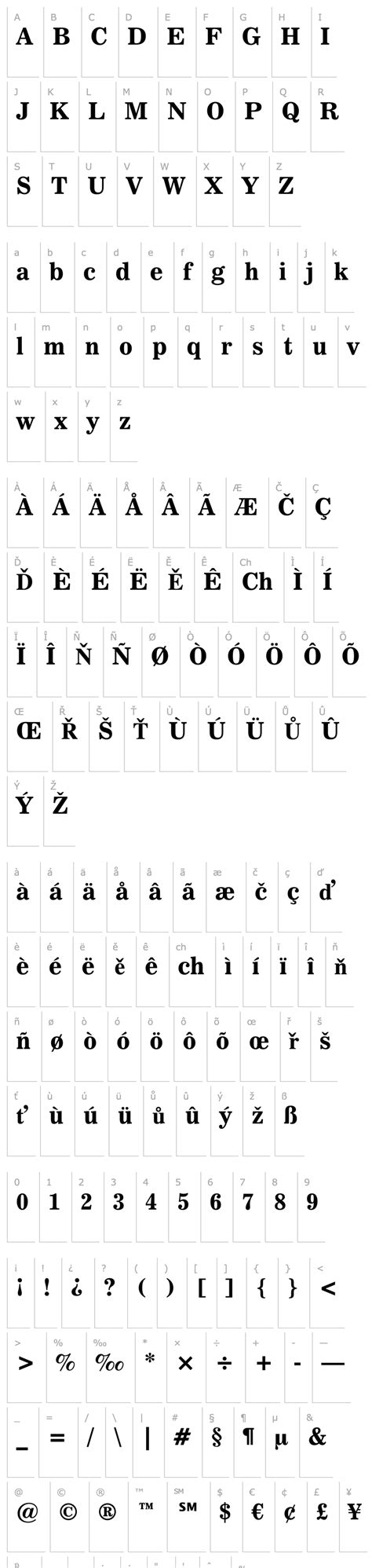
The Iinews706 Font: A Comprehensive Guide
The iinews706 Font: A Comprehensive Guide
Hey everyone! Today, we’re diving deep into something super cool for all you designers, bloggers, and content creators out there: the iinews706 font . You might have seen it popping up around the web, or maybe you’re curious about what makes this particular typeface tick. Well, buckle up, because we’re about to break down everything you need to know about the iinews706 font, from its origins and characteristics to where you can use it and how to make it shine in your projects. We’ll explore why this font has gained traction and how it can elevate your visual game. So, if you’re looking to add a fresh, distinctive touch to your designs, stick around. We’re going to cover its unique features, its versatility, and some best practices for using it effectively. Get ready to fall in love with typography all over again, guys!
Unpacking the iinews706 Font: What Makes It Special?
So, what exactly is the iinews706 font and why should you care? This typeface has a certain je ne sais quoi that sets it apart from the crowd. When we talk about fonts, we’re not just talking about letters; we’re talking about personality, tone, and how a message is received. The iinews706 font, for starters, often boasts a clean, modern aesthetic. This means it’s incredibly versatile and can adapt to a wide range of applications, from sleek corporate branding to trendy social media graphics. Think about the subtle curves, the precise kerning, and the overall balance it brings to any text. These aren’t accidental; they’re carefully crafted elements that contribute to its readability and visual appeal. Its legibility is a huge plus , especially for digital content where users are often scanning information quickly. The designers behind iinews706 clearly put a lot of thought into ensuring that it works well across different screen sizes and resolutions. Whether you’re using it for headlines that need to grab attention or for body text that needs to be easily digestible, this font performs admirably. We’re going to explore the nuances of its design, perhaps touching on its serifs (or lack thereof, if it’s sans-serif!), its stroke width variations, and how these elements contribute to its overall character. Understanding these finer points helps you appreciate the craft and make informed choices about when and how to deploy it. So, if you’re looking for a font that’s both stylish and functional, the iinews706 font might just be your new best friend in the design world.
Exploring the Versatility of iinews706
One of the most compelling aspects of the iinews706 font is its sheer versatility, guys. Seriously, this font isn’t a one-trick pony. It can seamlessly transition from one design context to another, making it a valuable asset in any designer’s toolkit. Let’s talk about how. For starters, its clean lines and balanced proportions make it an excellent choice for branding and corporate identity . Imagine a company logo using iinews706 – it immediately conveys professionalism, modernity, and a certain level of sophistication. But it doesn’t stop there. Flip the script, and this same font can be used for more creative endeavors. Think about website design : iinews706 can be used for navigation menus, body text, or even eye-catching headings. Its readability ensures that your users can easily find what they’re looking for, enhancing their overall experience on your site. And for print design , whether it’s brochures, posters, or business cards, iinews706 holds its own. It doesn’t get lost in busy layouts and maintains clarity even at smaller sizes. Social media managers, take note! This font is also fantastic for social media graphics and marketing materials . It pops on platforms like Instagram, Facebook, and Twitter, helping your content stand out in a crowded feed. Plus, if the iinews706 font comes in multiple weights (like light, regular, bold, etc.), that’s another layer of versatility. You can use different weights to create hierarchy and visual interest within your designs without needing to switch fonts – keeping your design cohesive and professional. We’ll delve into specific examples of how it excels in different scenarios, proving that the iinews706 font is truly a chameleon in the world of typography.
iinews706 in Branding and Marketing
When it comes to making a lasting impression, branding and marketing are where the iinews706 font truly shines. In the cutthroat world of business, your brand’s visual identity is often the first point of contact a potential customer has with your company. That’s where a well-chosen font like iinews706 can make all the difference. For logos, using iinews706 can instantly communicate a sense of modernity, trustworthiness, and innovation. Its clean and crisp letterforms ensure that your brand name is not only legible but also memorable. Think about how a simple, elegant font can convey more about a brand’s values than pages of text. This font has that power. Moving beyond the logo, consider its application in marketing collateral . Brochures, flyers, advertisements – they all benefit from a font that is both aesthetically pleasing and highly readable. iinews706 delivers on both fronts. It can be used for compelling headlines that capture attention and for body copy that smoothly guides the reader through your message. Imagine a product description that’s easy to read and engaging; it’s far more likely to convert potential customers. Furthermore, in the digital marketing space, consistency is key. Website design and social media graphics using the iinews706 font will create a unified brand experience across all platforms. This reinforces brand recognition and builds trust with your audience. If you’re running online ads, the font choice can significantly impact click-through rates. A clear, attractive font like iinews706 can make your ad more inviting and professional. We’ll be exploring specific design tips on how to leverage the iinews706 font to create impactful marketing materials that resonate with your target audience, ensuring your message cuts through the noise and achieves its desired outcome. It’s all about making smart, strategic choices with your typography, and iinews706 offers a fantastic foundation to build upon.
iinews706 for Web and Digital Content
Alright guys, let’s talk about the digital realm, because this is where the iinews706 font really proves its mettle. In today’s fast-paced online world, web and digital content demand fonts that are not only visually appealing but also exceptionally readable on screens of all sizes. The iinews706 font often fits this bill perfectly. Its design, typically characterized by clean lines and clear letterforms, ensures excellent legibility whether it’s being viewed on a massive desktop monitor or a tiny smartphone screen. This is absolutely crucial for user experience (UX). When visitors can easily read your website’s text, headings, and calls to action, they’re more likely to stay engaged, navigate your site effectively, and convert into customers or subscribers. Think about it: a beautifully designed website can fall flat if the text is a pain to read. The iinews706 font helps prevent that common pitfall. For bloggers and content creators , using this font for your posts can make your articles more inviting and accessible. It helps break down information into digestible chunks, encouraging readers to delve deeper into your content. Website designers will appreciate its ability to integrate seamlessly into various design layouts. Whether you’re crafting a minimalist portfolio or a feature-rich e-commerce site, iinews706 can provide a consistent and professional typographic voice. Furthermore, its suitability for headlines means you can create impactful titles that grab attention immediately, while its readability for body text ensures that the rest of your content flows smoothly. We’ll also touch upon how iinews706 pairs well with other design elements, like images and icons, to create a cohesive and visually pleasing digital experience. So, if you’re looking to enhance your online presence with typography that’s both stylish and supremely functional, the iinews706 font is definitely one to consider for all your digital endeavors.
Tips for Using the iinews706 Font Effectively
Now that we’ve sung the praises of the iinews706 font and explored its many uses, let’s get down to the nitty-gritty: how do you actually use it effectively? It’s not just about picking a font; it’s about mastering its application. First things first, consider the context . While iinews706 is incredibly versatile, its best performance often comes when matched with the right project. For instance, its modern feel might be perfect for tech startups or contemporary art galleries, but perhaps less so for a vintage-themed event. Always think about the message you want to convey . Secondly, play with weights and sizes . If your iinews706 font package includes various weights (light, regular, bold, black), use them to create hierarchy. A bold weight for headlines draws the eye, while a lighter weight for subheadings or body text maintains a clean look. Varying font sizes is equally important for guiding the reader’s eye. Pairing is key . No font exists in a vacuum. Think about pairing iinews706 with other fonts. Often, a good strategy is to pair a distinctive font like iinews706 with a more neutral, highly readable font for body text. This creates visual interest without sacrificing readability. For example, if iinews706 is a bit stylized for long paragraphs, pair it with a simple sans-serif or serif font that complements its style. Don’t overdo it . While it’s tempting to use a font everywhere, restraint is a virtue in design. Too much of a good thing can dilute its impact. Reserve iinews706 for where it will have the most visual punch, perhaps for headings, key phrases, or branding elements. Check legibility . Always test your chosen font in the sizes and contexts you plan to use it. Zoom out on your design. Can you still read the text easily? This is especially critical for web design and mobile applications. Finally, consider the overall design aesthetic . How does the iinews706 font fit with your color palette, imagery, and layout? Ensure it harmonizes with the rest of your design elements to create a cohesive and impactful final product. By following these tips, guys, you can harness the full power of the iinews706 font and make your designs truly stand out.
Common Pitfalls to Avoid with iinews706
Even with a fantastic font like iinews706 , it’s easy to stumble into common design pitfalls if you’re not careful. We want your designs to sing, not stumble, right? One of the biggest mistakes people make is overusing the font . Just because iinews706 looks great doesn’t mean it needs to be on every single element of your design. Cluttering your design with too much of it can actually make it harder to read and less impactful. Think about using it strategically for headlines or key call-to-actions, rather than for every single line of text. Another common error is poor pairing . While iinews706 might be your star player, it needs a solid supporting cast. Pairing it with clashing or equally loud fonts can create visual chaos. Aim for complementary fonts that create harmony, not a cacophony. Often, a simple, highly readable font is the best companion for a more distinctive typeface. Ignoring legibility at small sizes is another big one, especially for digital applications. What looks great on a large desktop screen might become an illegible mess on a mobile phone. Always test your typography across different devices and sizes to ensure it remains clear and accessible. Guys, readability is king! Using the wrong weights can also be detrimental. If a font family offers multiple weights, using them incorrectly – for example, using a super light font for a critical heading – can undermine its intended impact. Make sure you’re using the appropriate weights to convey the right level of importance. Lastly, ignoring the context can lead to a mismatch. While iinews706 might be modern and sleek, it might not be the best fit for a project that calls for a deeply traditional or rustic aesthetic. Always ensure the font’s personality aligns with the overall tone and message of your project. By being mindful of these common pitfalls, you can ensure that the iinews706 font elevates your design, rather than detracting from it.
Where to Find and Use iinews706 Font
So, you’re convinced the iinews706 font is the perfect addition to your design arsenal, but where do you actually get your hands on it, and what are the best places to use it? Finding the iinews706 font typically depends on its licensing. Many fonts, especially those designed for commercial use or as part of larger font families, are available through professional font foundries or online marketplaces . Websites like MyFonts, Fontspring, or even Adobe Fonts (if it’s part of their library) are common places to search. Always check the specific licensing terms to ensure you’re using it legally and appropriately for your project, whether it’s for personal use, a small business, or a large corporation. Free font sites might also host it, but always be cautious and verify the source to avoid malware or incorrect licensing. Once you have it, the possibilities for use are vast, as we’ve touched upon. Websites and blogs are prime candidates. Incorporate it into your site’s CSS to give your online presence a unique identity. Social media graphics are another fantastic application – think Instagram stories, Facebook banners, or Twitter headers. Print materials , from business cards and flyers to posters and brochures, can benefit from its distinctive look. Presentations (PowerPoint, Google Slides) can be made more engaging with well-chosen fonts for titles and key points. Even app interfaces can leverage iinews706 for a clean and modern user experience. Ultimately, the best place to use iinews706 is anywhere you want to convey a sense of modernity, clarity, and professional polish. Just remember to always adhere to its licensing agreements, guys, and you’ll be well on your way to creating some seriously stunning designs with this versatile typeface.
Conclusion: Elevate Your Designs with iinews706
As we wrap up our deep dive into the iinews706 font , it’s clear that this typeface offers a compelling blend of style and functionality. We’ve explored its unique characteristics, its incredible versatility across branding, marketing, web design, and digital content, and even touched on some essential tips for using it effectively while avoiding common pitfalls. The iinews706 font isn’t just another set of letters; it’s a tool that can significantly elevate the visual appeal and professional polish of your projects. Whether you’re a seasoned designer or just starting out, incorporating a well-chosen font like iinews706 can make a tangible difference in how your message is perceived. Remember its clean aesthetic, its excellent readability, and its adaptability to various contexts. Use it strategically, pair it thoughtfully, and always test its legibility. By doing so, you’ll be able to harness its full potential and create designs that are not only beautiful but also highly effective. So go forth, experiment with the iinews706 font, and let it help you tell your story in a way that captivates and communicates clearly. Happy designing, guys!